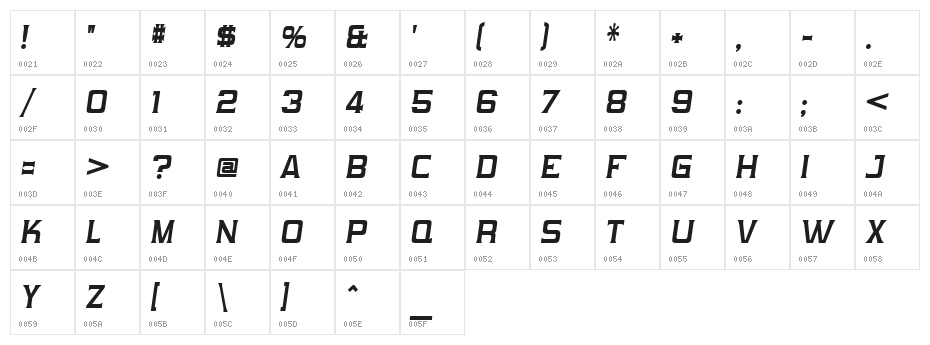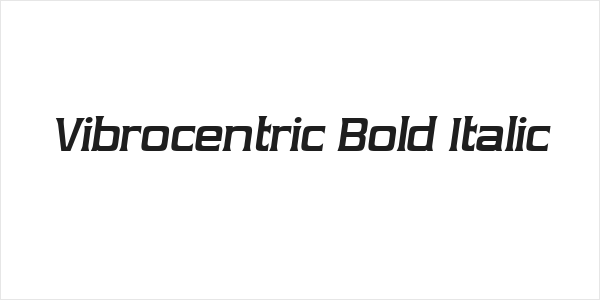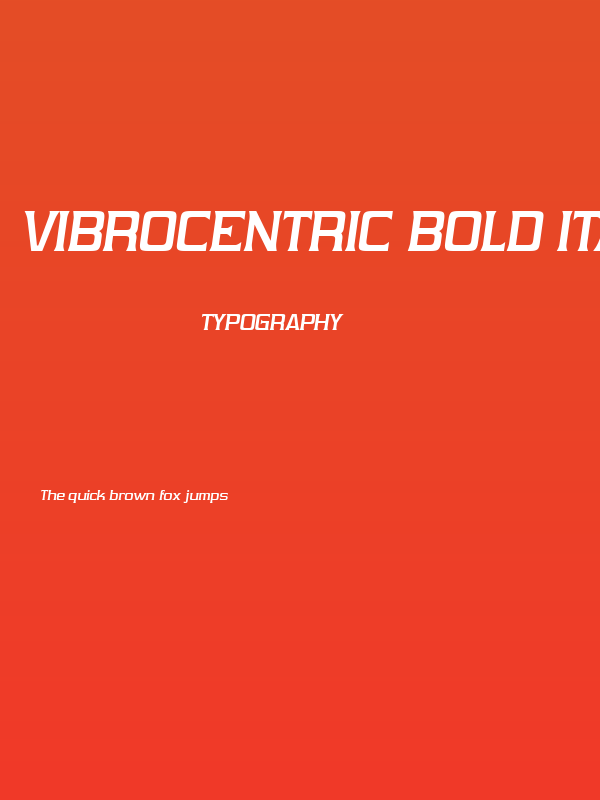
Vibrocentric Bold Italic Font
Vibrocentric Bold Italic Description
This font features a bold and italicized style with a modern and dynamic appearance. The characters are slightly slanted, giving a sense of motion and energy. The strokes are thick and consistent, providing a strong visual impact. The uppercase letters are prominent and assertive, while the lowercase letters maintain a cohesive flow. Numbers and special characters are designed to match the boldness and slant of the alphabet, ensuring uniformity across all elements. This font is ideal for projects that require a bold statement or a contemporary look.
| Proposed Projects | Ideal for sports branding, dynamic posters, modern advertising, and tech-related designs. |